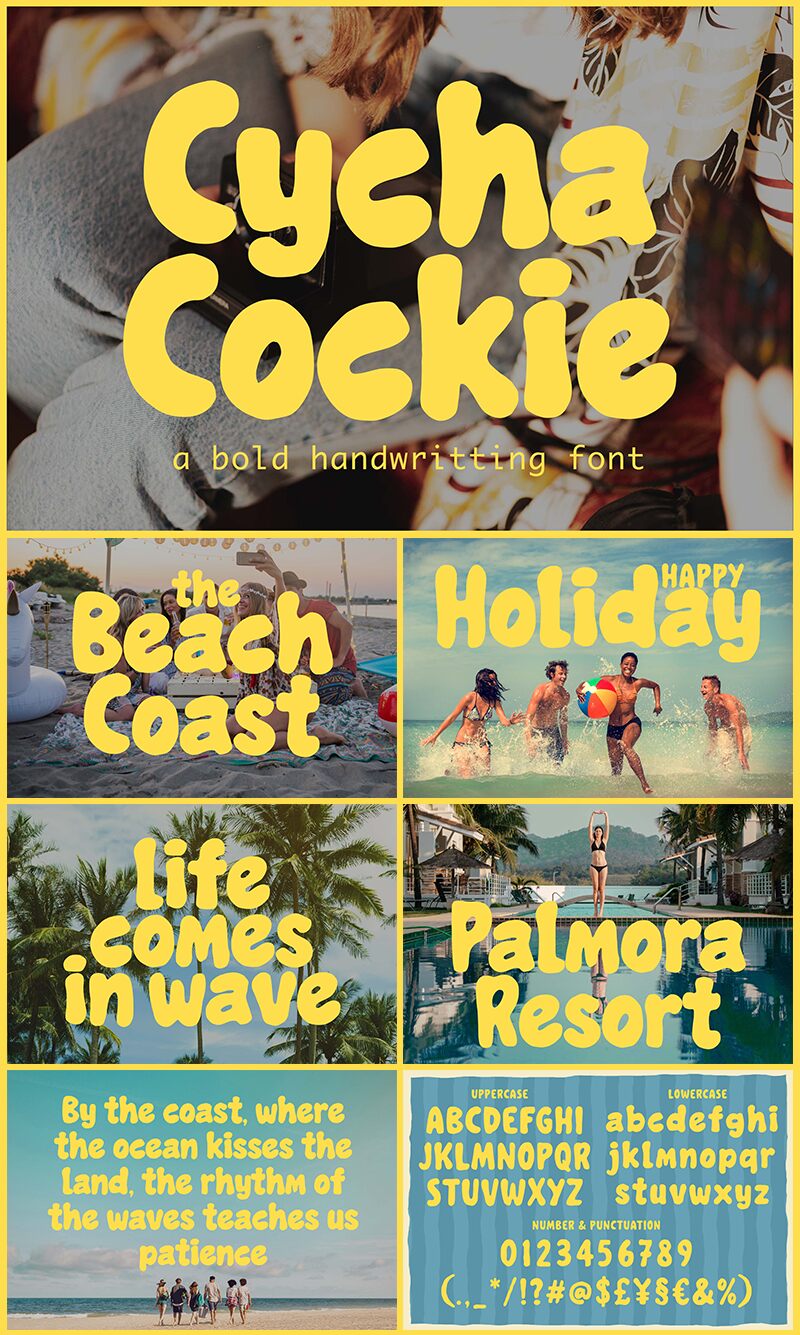
Cycha Cockie font by Blankids is a free cartoon display font that looks soft to the touch-chunky, rounded, and a little squishy, like letters cut from marshmallow dough. It carries a consistent, inky boldness that keeps words readable even at a glance, while the plump curves add a carefree, kid-friendly bounce. The rhythm feels upbeat without turning chaotic, making headlines pop without shouting.
Using Cycha Cockie, playful branding and posters shine, especially for kids’ events, snack packaging, party invites, game titles, YouTube thumbnails, and sticker sets. This free font holds up big and bold; keep body copy simpler and smaller. Pair it with a clean geometric sans for captions or menus to let the bubbly forms take center stage.